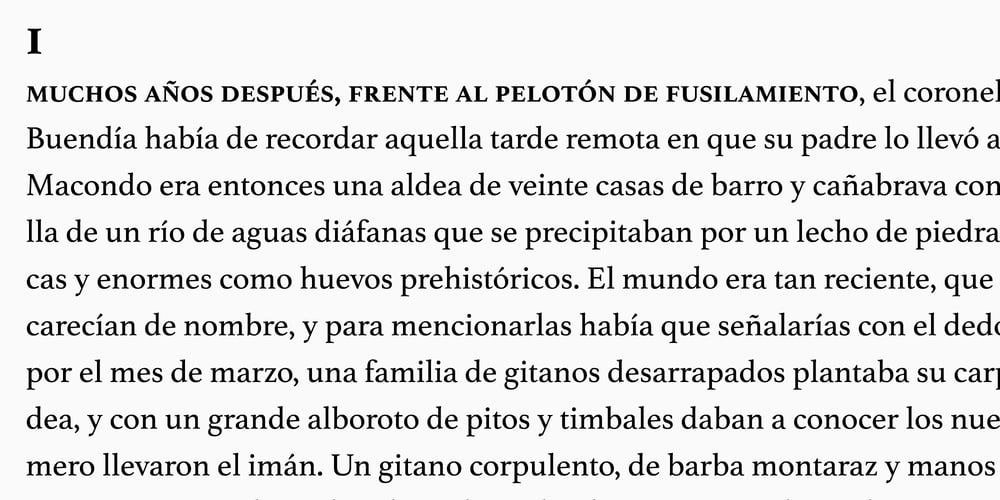
Athelas Font Family was designed by Veronika Burian, José Scaglione and published by TypeTogether. Athelas contains 4 styles and family package options. An attempt to go back towards the beauty of fine book printing, inspired in Britain’s literary classics. Athelas takes full advantage of the typographic silence, that white space in the margins, between the columns, the lines, the words, the lettershapes and finally, within the characters themselves. It is also intended to take advantage of the great advances and technical developments made in offset printing. Athelas shows its best side in finely crafted book editions and good printing conditions. Athelas has a large character set that covers most of the languages that use the Latin script. Although inspired in British literature, this typeface respects the cultural values behind different languages, where diacritic marks have an utterly important role. Athelas features four weights and about 800 characters per weight, including small caps, discretionary ligatures, fractions, a complete range of numerals for every use and a set of ornaments and arrows.